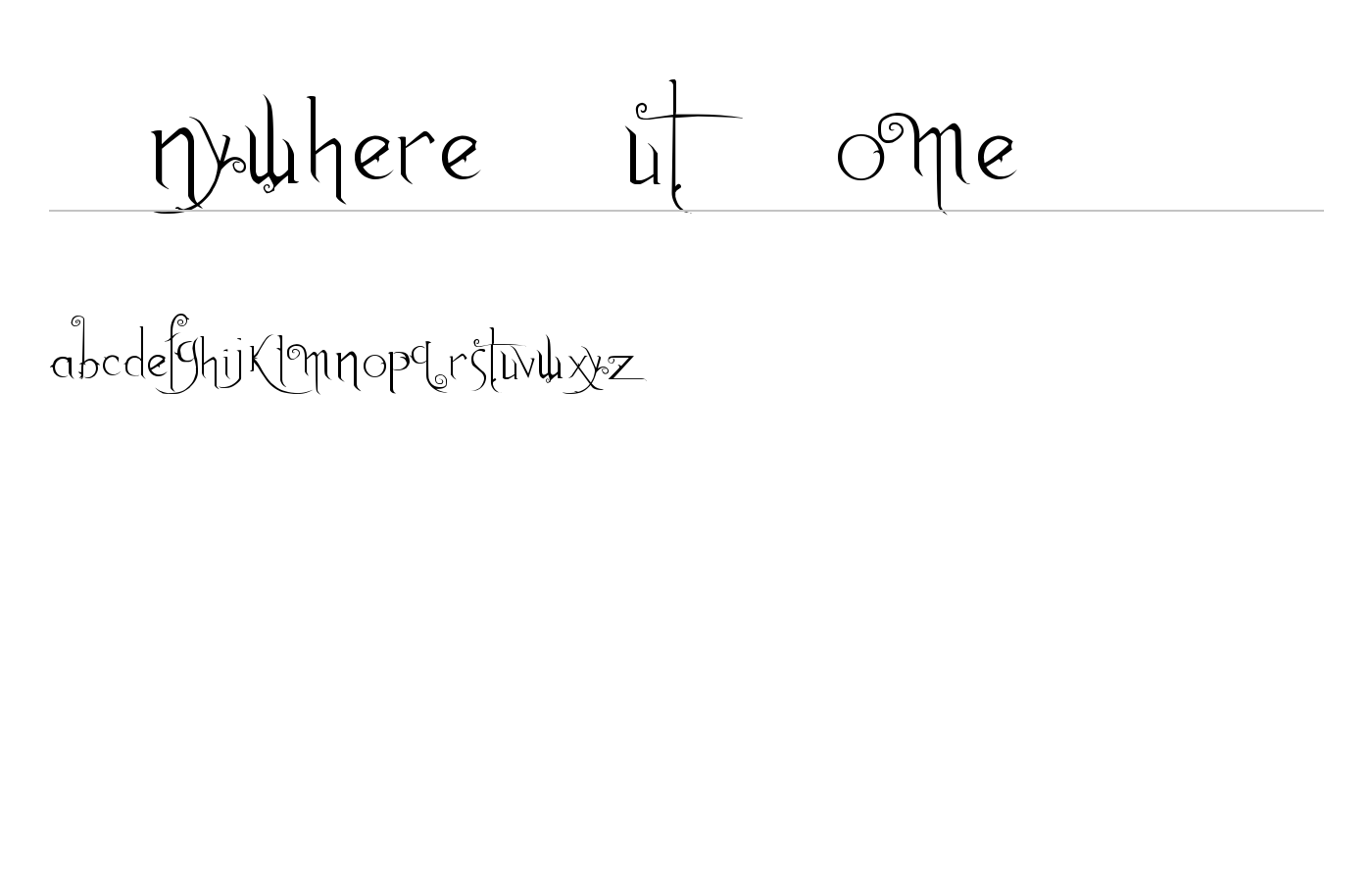
Anywhere But Home is a delicate and whimsical serif font characterized by its thin strokes and elaborate, curly terminal details that give it a mysterious, almost magical feel. Its narrow letterforms with high contrast and unique flourishes make it ideal for creative projects like fantasy book covers, invitations, or artistic branding where a touch of elegance and individuality is desired. This font captures an enchanting, otherworldly mood perfect for adding personality and charm in decorative headings or logos.
Anywhere But Home Font